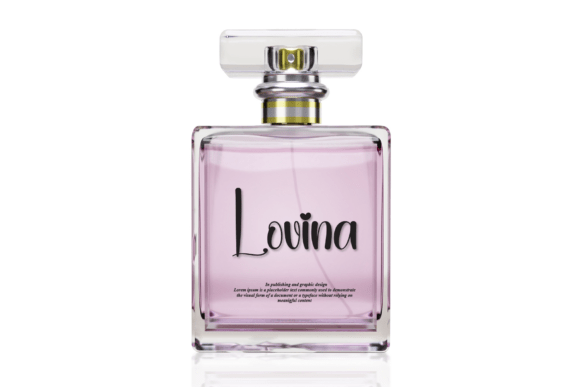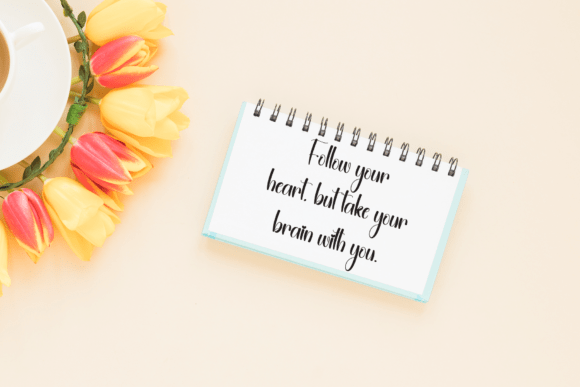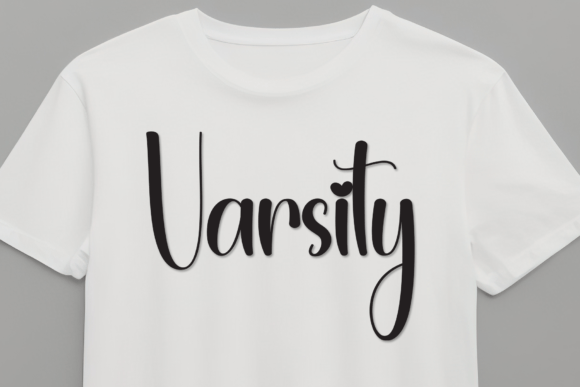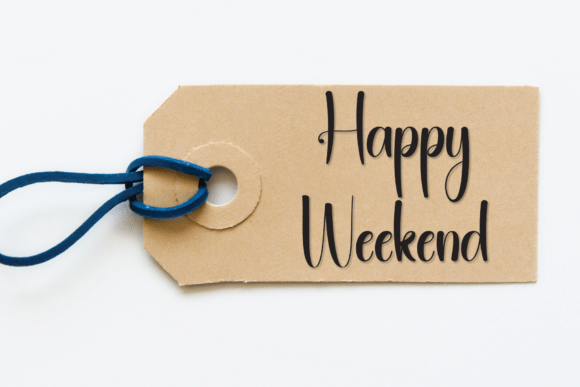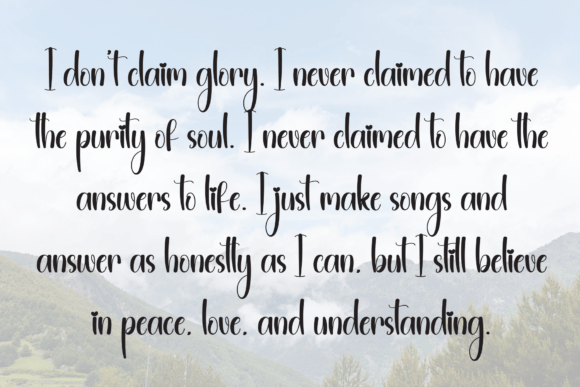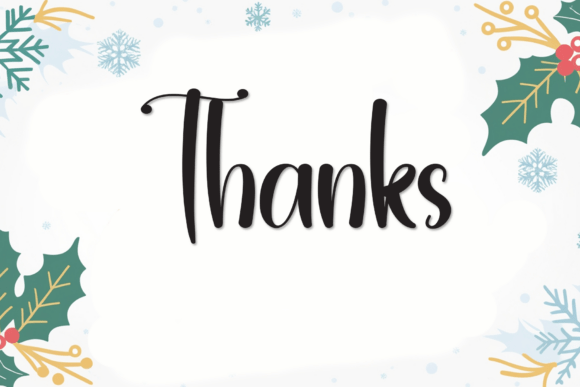
Ring in the Holiday Cheer with the Perfect Font
As the holiday season approaches, designers and crafters alike start brainstorming creative ways to spread cheer to loved ones. For many, it begins with a favorite holiday card or invitation, carefully crafted with love and care. But have you ever wished for a font that captures the magic of the season in every stroke?
Enter the Holiday Jingle Font, a whimsical and festive script designed to bring joy to every holiday message. With its tall, slender structure and bouncy baseline, this font is the quintessential choice for Christmas cards, holiday party invitations, and seasonal marketing campaigns. Its subtle heart accents add a touch of love to every design, making it a valuable addition to any designer’s toolkit.
Holiday Jingle Font Key Features
- Unique Characteristics: The Holiday Jingle Font features a playful, handwritten style with intricate details and ornaments, making it perfect for festive and holiday-themed designs.
Holiday Jingle Font Review
I recently had the chance to work with the Holiday Jingle Font, and I must say it’s a delightful addition to any holiday project ✨. The font’s playful, whimsical style immediately captures the festive spirit, making it perfect for greeting cards, social media graphics, and even packaging designs.
Here are some of the things that work well with the Holiday Jingle Font:
- Unique, eye-catching style that stands out from the crowd ✨
- Perfect for adding a touch of whimsy and fun to holiday projects
- Includes a range of characters and symbols to support your creative vision
- Some characters may not be compatible with certain font styles or software ⚠️
- May not be as versatile as other holiday fonts for more formal or traditional designs
- Limited customization options, which may limit its use in certain projects
Overall, I think the Holiday Jingle Font is a great choice for designers looking to add some festive flair to their projects. While it may have some limitations, its unique style and playful charm make it a great addition to any holiday design collection ✨.
Practical Application Guide for Holiday Jingle Font
The Holiday Jingle Font is perfect for holiday-themed designs, such as:
– Christmas cards and invitations
– Holiday party flyers and posters
– Seasonal social media graphics
– New Year’s Eve countdowns and party invitations